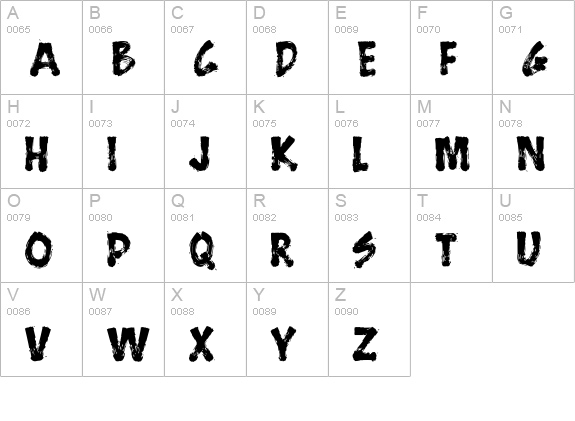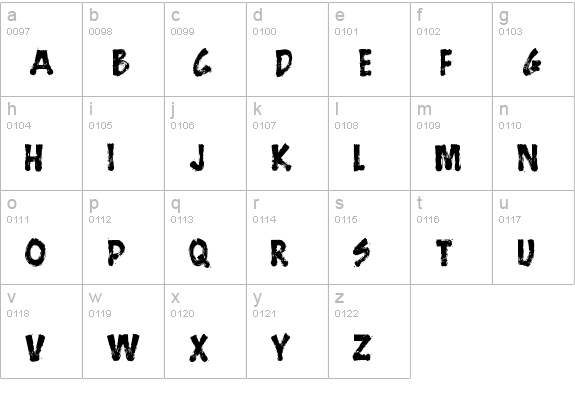
BrushStrokeFast Font Details
Introducing BrushStrokeFast font, a dynamic and energetic typeface that brings a sense of spontaneity and movement to your designs. This unique font features bold brush strokes with a fast-paced feel, perfect for adding a touch of creativity and flair to your projects. BrushStrokeFast font is a versatile choice for a wide range of design applications, from posters and flyers to social media graphics and branding materials. Its hand-painted appearance adds a personal touch and a sense of authenticity to your work. Best of all, BrushStrokeFast font is available for free download at FontsMarket.com, making it accessible to designers of all levels. Whether you're a seasoned professional or just starting out, this font is sure to inspire your creativity and help you achieve stunning results. Don't miss out on the opportunity to add BrushStrokeFast font to your font collection today!